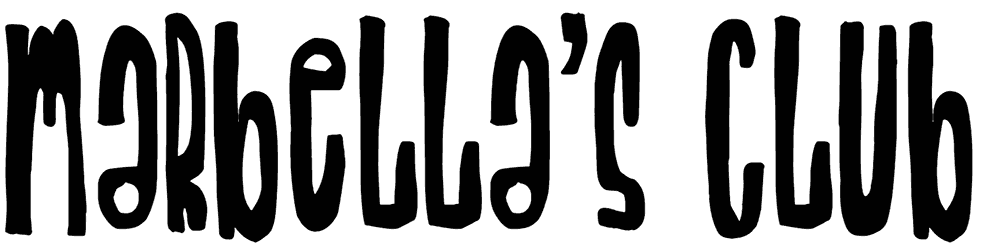
Marbella’s Club Font
Marbella’s Club font, with its tall and joyous mood and a mix of uppercase and lowercase letters, aspires to be the best in generating comic books, children’s storybooks, movies, and other media.